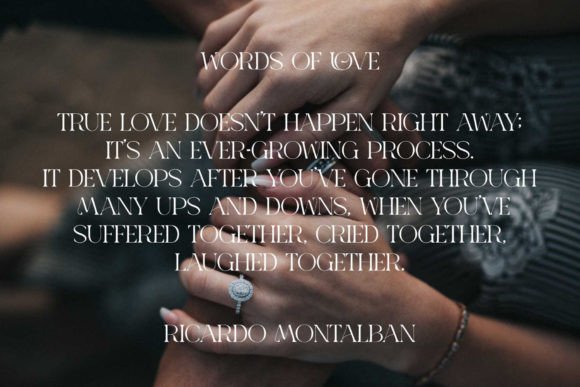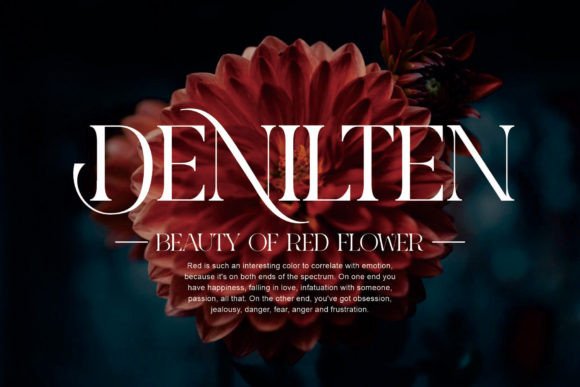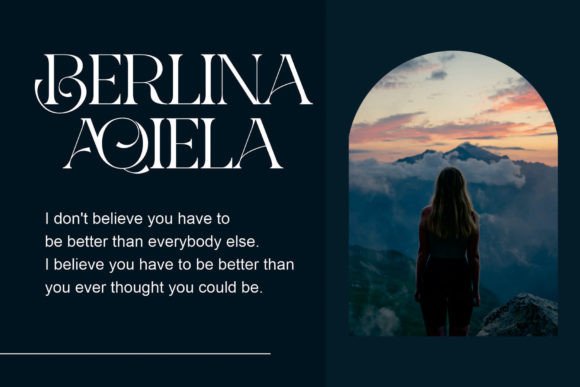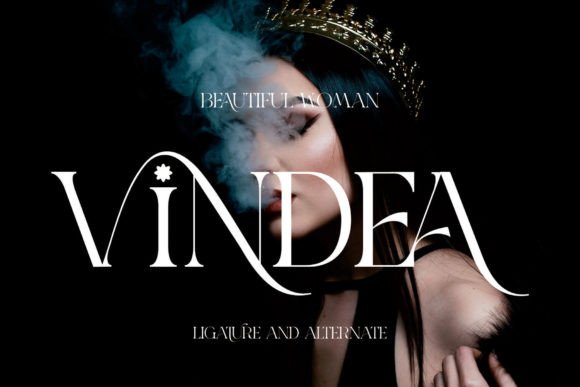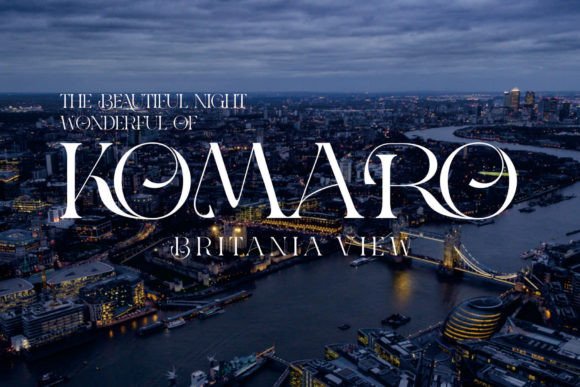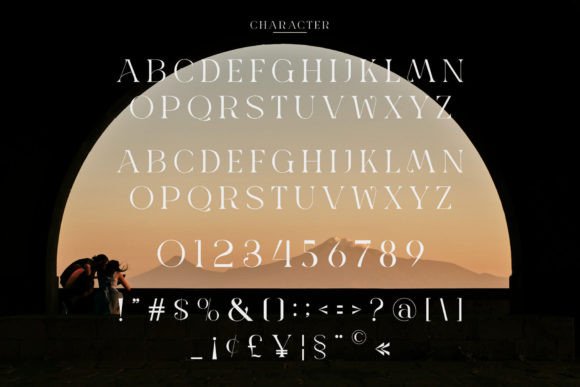
Introduction to Kunica Font
As designers, we’ve all been there – staring at a blank canvas, trying to bring a creative project to life. The perfect font can make all the difference, elevating our designs from ordinary to extraordinary. That’s where the Kunica Font comes in – a unique and elegant serif typeface that combines the best of classic and modern styles.
Whether you’re working on a branding project, logo design, or social media post, the Kunica Font is an invaluable resource. Its high level of readability and versatility make it suitable for a wide range of applications, from product packaging to invitations. And with its PUA encoded design, you’ll have access to a vast array of glyphs and ligatures, allowing you to add a personal touch to your designs.
For designers, the Kunica Font is a valuable asset that can take our creative projects to the next level. With its high quality and elegant style, it’s no wonder why designers are turning to this font for their design needs. And the best part? It’s available for free download, making it an accessible design resource for creatives of all levels.
Key Features of Kunica Font
- High-quality design resource for creative projects, offering a unique and stylish aesthetic.
- Features a modern and elegant design style, making it perfect for use in branding, typography, and digital art projects.
- Designed to be highly legible and versatile, allowing for effective use in a variety of creative contexts.
Honest Review: Kunica Font
I recently stumbled upon the Kunica Font and I must say it’s been a game-changer for my creative projects. As a designer, I’m always on the lookout for high-quality design resources that can elevate my work, and Kunica Font definitely fits the bill.
What works well: ✨ The Kunica Font is incredibly versatile and can be used for a wide range of creative projects, from branding and marketing materials to web design and digital art. The font is also available for free download, making it a fantastic resource for designers on a budget. The transparent background feature is also a huge plus, allowing for seamless integration with any design.
- Transparent background feature
- Great for branding, marketing, and web design
However, I do have one minor gripe: ⚠️ The font could benefit from a more extensive character set, particularly in terms of special characters and accents. Additionally, the font’s flexibility can sometimes make it difficult to read at smaller font sizes.
Overall, I’m really impressed with the Kunica Font and would highly recommend it to designers looking for a high-quality, free design resource. Just be aware of the limitations mentioned above, and you’ll be good to go!
The Kunica Font is a high-quality design resource perfect for any creative project. With its unique and modern style, it’s ideal for various applications, including graphic design, digital art, and more.
Tips for Getting the Most Out of Kunica Font
To get the most out of the Kunica Font, consider the following tips:
- Use it with a transparent background for a clean and modern look.
- Experiment with different font sizes and styles to create a unique visual effect.
- Combine the Kunica Font with other design elements, such as images and shapes, to create a cohesive design.
The Kunica Font is perfect for various design projects, including:
- Business cards and letterheads.
- Brochures and flyers.
- Website headers and footers.